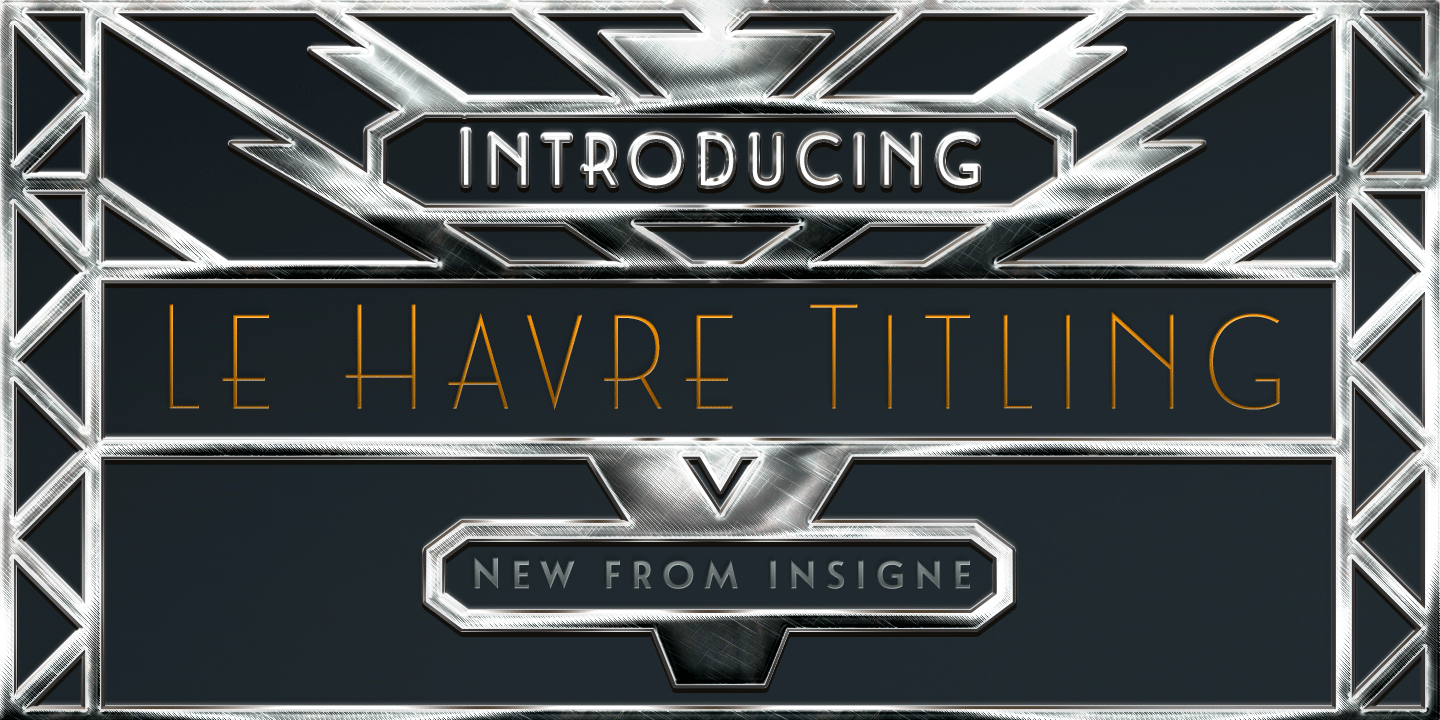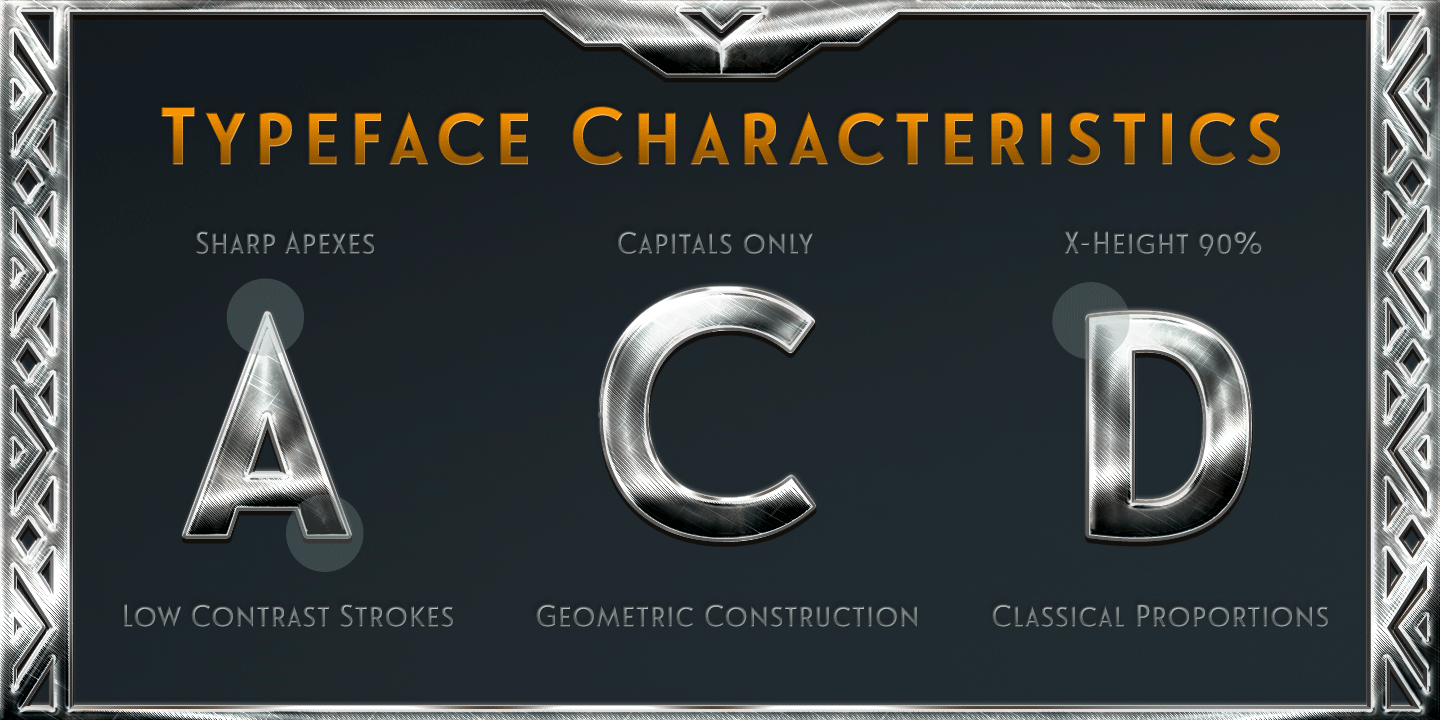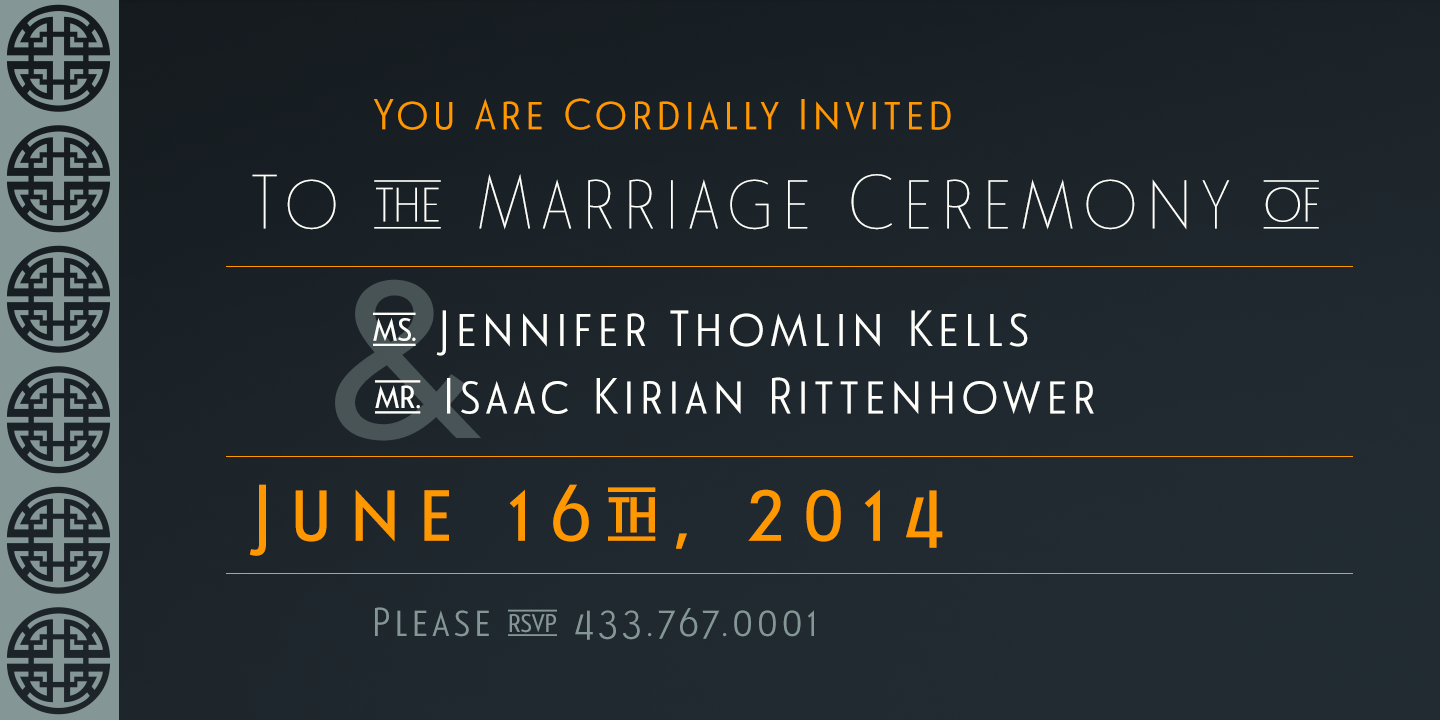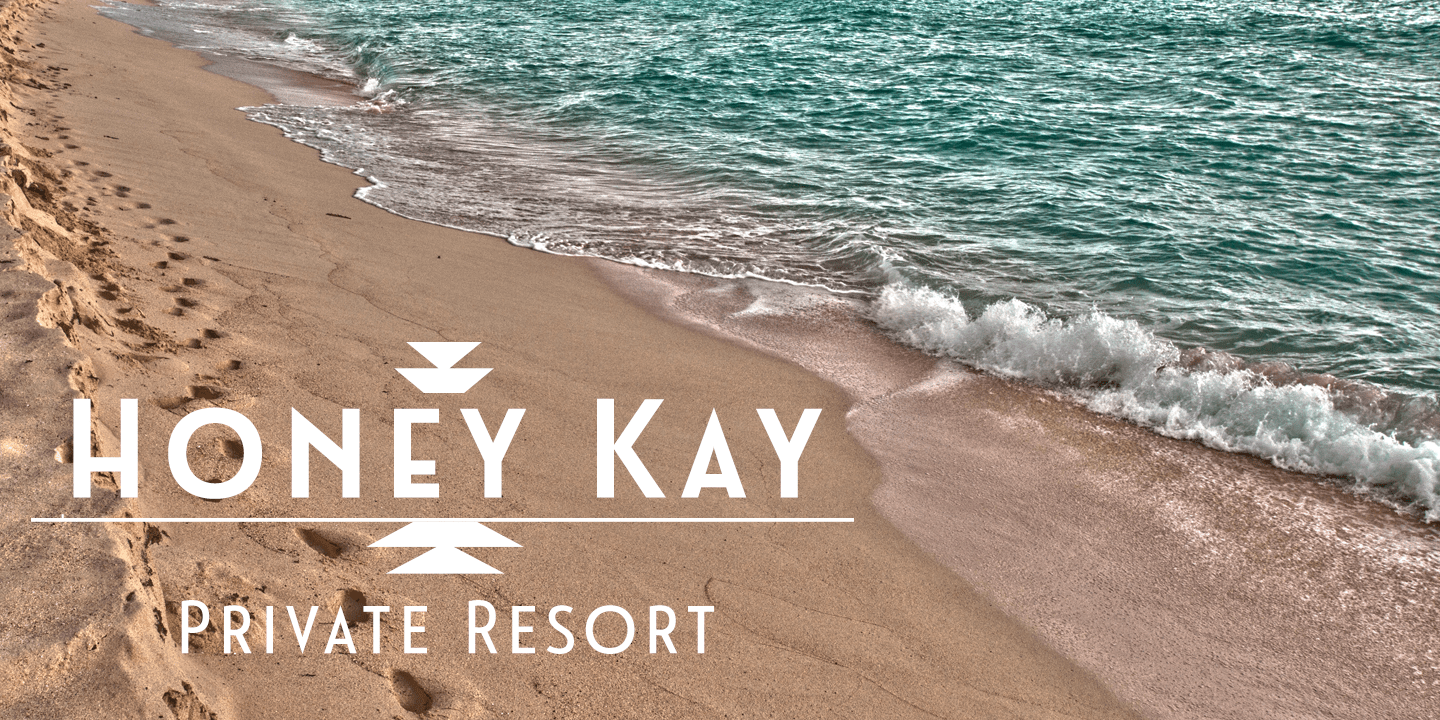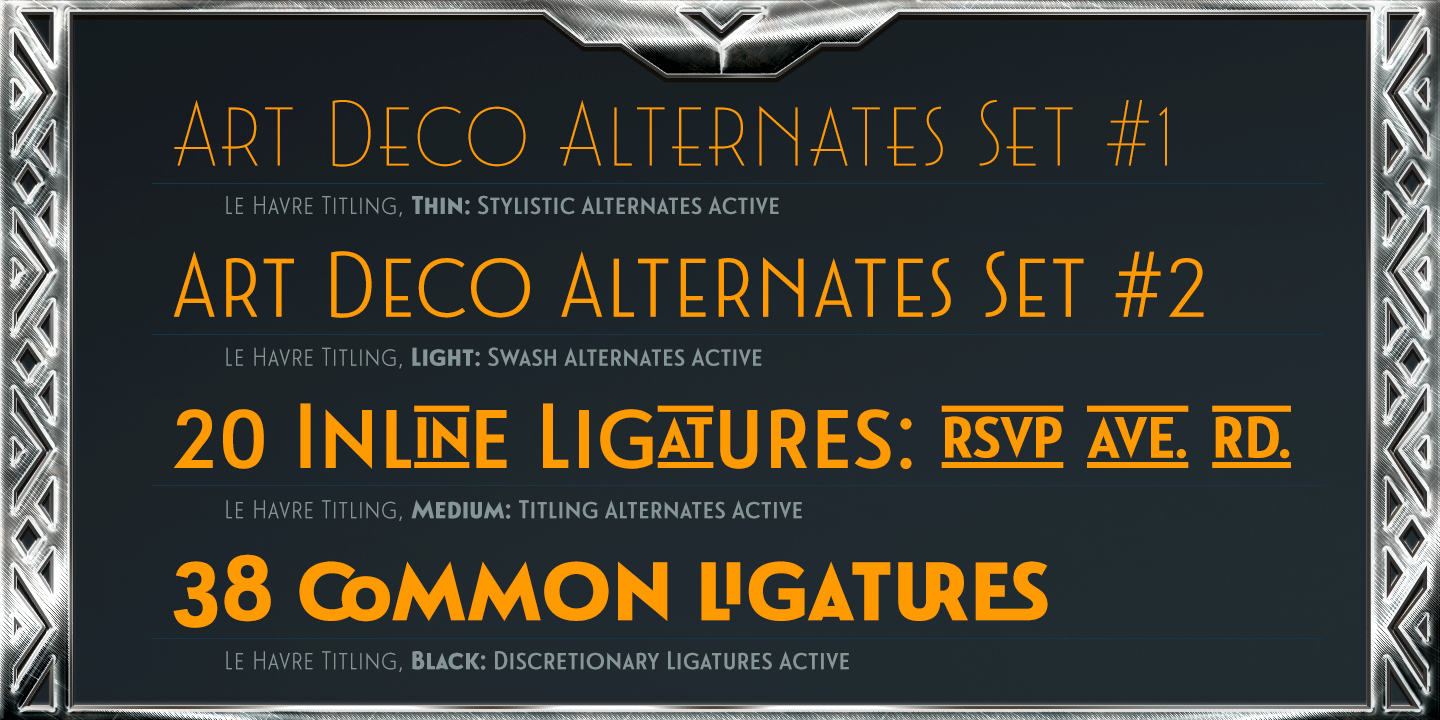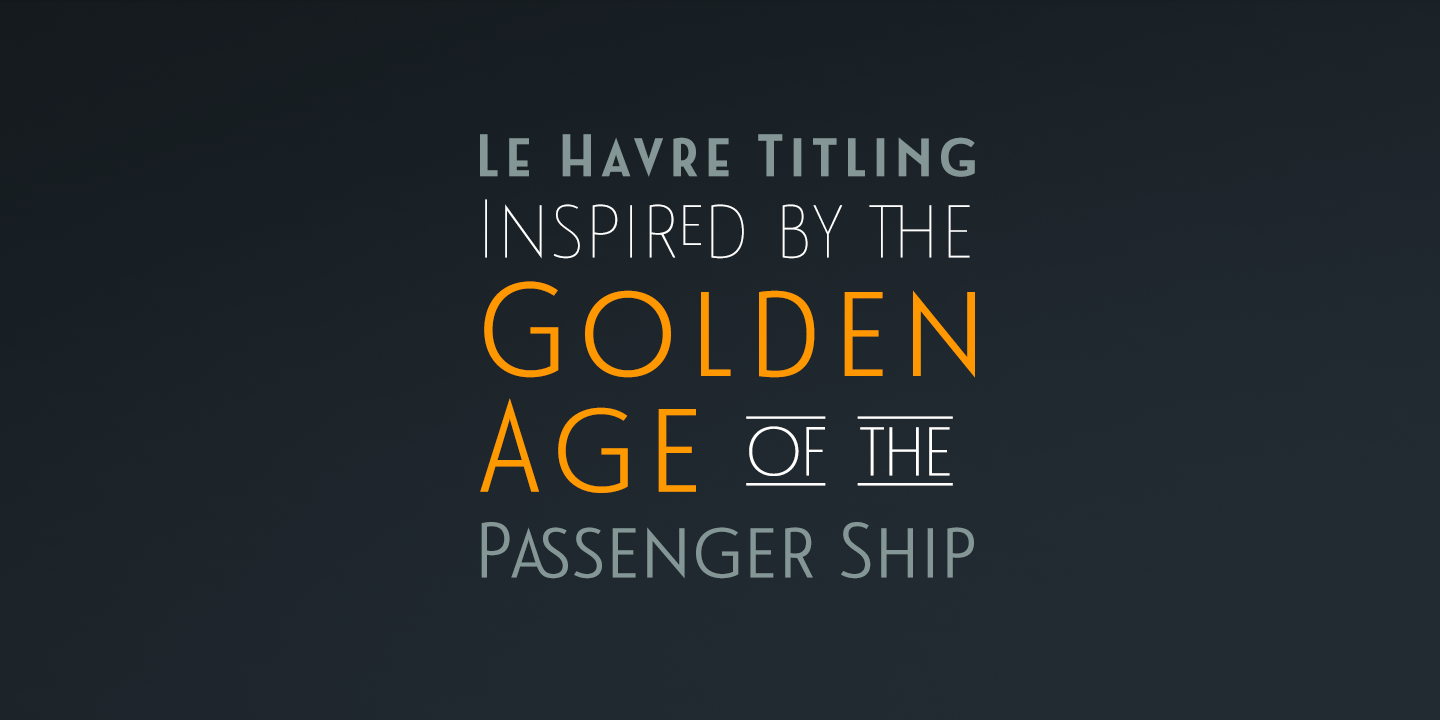
Le Havre Titling
Font Family by Insigne
Throughout time, history's architects have incorporated some of the finest illustrations of type into their great works--cuneiform on Mesopotamian ziggurats; Greek etched into the temples of the gods; inscriptions marking the monuments of mighty Rome. From these Roman inscriptions specifically, we take our capital letters of today; and while we've lost the need for serifs over time, our current characters maintain the classical foundations, even after being distilled to their simplistic forms.
Here's where we have the basis for Le Havre Titling. This updated face is a carefully optimized version of Le Havre that uses purely capital lettering. Originally inspired by the golden period of the passenger ship and the French port that bid a rich bon voyage to so many famed, luxurious ocean liners of the Roaring Twenties and Thirties, the typeface includes an exciting array of ligatures that brings it into the present day and gives designers a tremendous amount of versatility in their work. With its seven weights, Titling looks equally at home on the side of a building as it does in a finely crafted invitation.
With over five hundred glyphs, Le Havre Titling offers a multiplicity of options for your projects. Combine ligatures, play around with two sets of art deco forms, use original caps, and more; every one of these is obtainable with the OpenType functionality. The new design also shares five weights with the original Le Havre, allowing you to maximize your potential through its interchangeability. Titling's Thin weights are delicate but not too fragile, and its geometric forms give each individual composition you create an exquisite and beautiful sense of emotion. Without a doubt, this fresh, fashionable take on the classical forms offers your reader refined, yet unanticipated approach as he or she travels through your text.